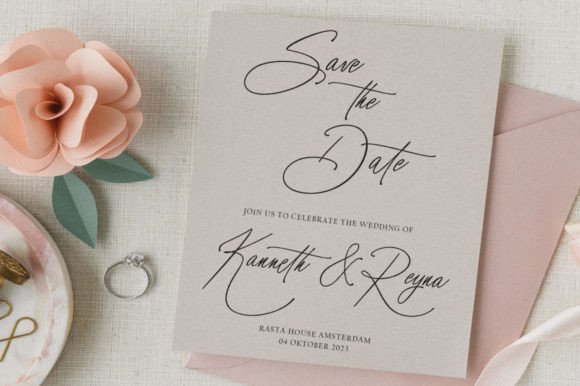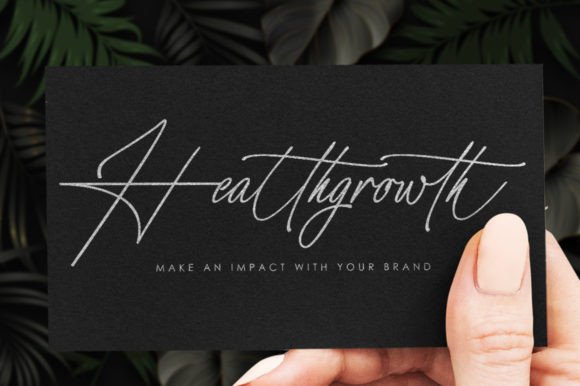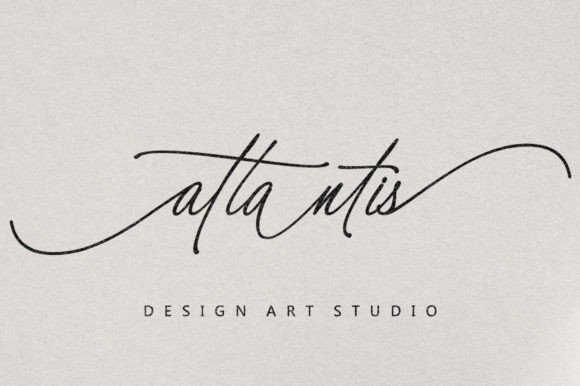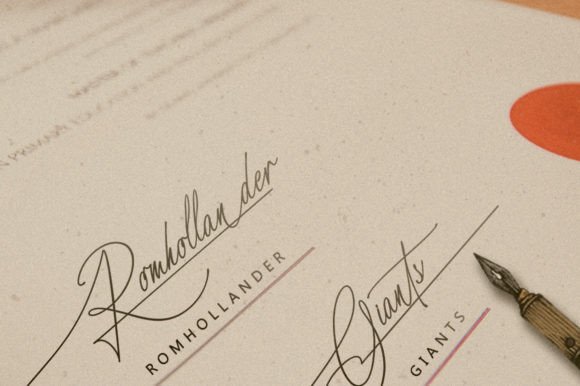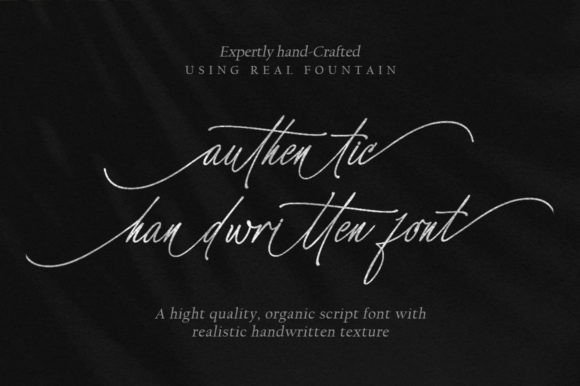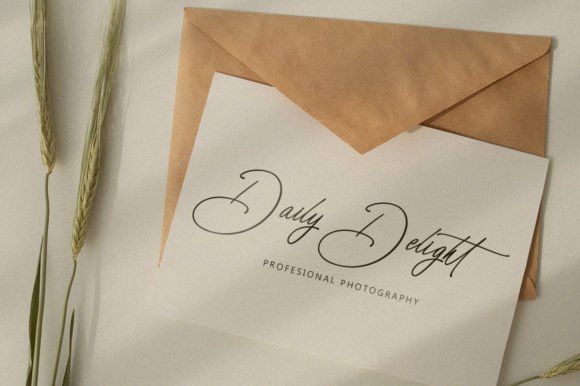
Introducing Artistic Signature Font: Elevate Your Designs with Elegance and Sophistication
In the world of design, a font can make all the difference in creating a lasting impression. For those seeking to add a touch of luxury and class to their work, the Artistic Signature Font is an exceptional choice. This stunning script font boasts an artistic flair that is sure to elevate your designs, whether you’re working on branding, invitations, or high-end projects.
The Essence of Artistic Signature Font
Artistic Signature is a luxurious script font that exudes elegance and sophistication. Its flowing curves and unique hand-drawn style give it a distinctive character that sets it apart from other fonts. The varying stroke widths add a level of depth and nuance, making it perfect for designs that require a touch of refinement.
Key Features of Artistic Signature Font
- Elegant and Flowing Curves: The font’s smooth, flowing curves create a sense of continuity and harmony, making it ideal for designs that require a touch of sophistication.
- Unique Hand-Drawn Style: The font’s hand-drawn style gives it a personal and artistic feel, making it perfect for designs that require a touch of personality.
- Varying Stroke Widths: The font’s varying stroke widths add a level of depth and nuance, making it perfect for designs that require a touch of elegance.
- Luxurious and Refined: The font’s luxurious and refined aesthetic makes it perfect for high-end designs, such as branding, invitations, and luxury packaging.
Artistic Signature Font is perfect for designers and crafters who want to add a touch of elegance and sophistication to their work. Whether you’re working on a branding project, creating invitations, or designing luxury packaging, this font is sure to impress. Its unique hand-drawn style and varying stroke widths make it a versatile font that can be used in a variety of design applications.
Use Cases for Artistic Signature Font
- Branding: Use Artistic Signature Font to create a luxurious and sophisticated brand identity that reflects your company’s values and aesthetic.
- Invitations: Add a touch of elegance and refinement to your invitations with Artistic Signature Font, perfect for weddings, galas, and other high-end events.
- Luxury Packaging: Use Artistic Signature Font to create luxurious and eye-catching packaging that reflects your brand’s high-end aesthetic.
- Stationery: Add a touch of sophistication to your stationery with Artistic Signature Font, perfect for business cards, letterheads, and more.
Tips for Using Artistic Signature Font
- Pair with Neutral Colors: Pair Artistic Signature Font with neutral colors, such as black, white, and gray, to create a clean and sophisticated look.
- Use on High-Quality Paper: Use Artistic Signature Font on high-quality paper or cardstock to create a luxurious and refined feel.
- Experiment with Ligatures: Experiment with ligatures and swashes to add a touch of personality and flair to your designs.
Artistic Signature Font is a luxurious script font that is sure to elevate your designs with its elegant and flowing curves, unique hand-drawn style, and varying stroke widths. Perfect for designers and crafters who want to add a touch of sophistication and class to their work, this font is ideal for branding, invitations, luxury packaging, and more. With its versatility and range of use cases, Artistic Signature Font is a valuable addition to any designer’s font library.